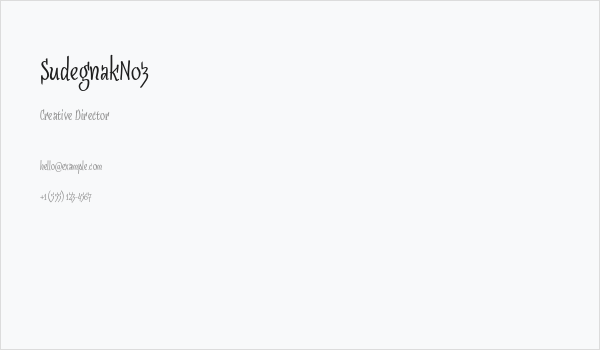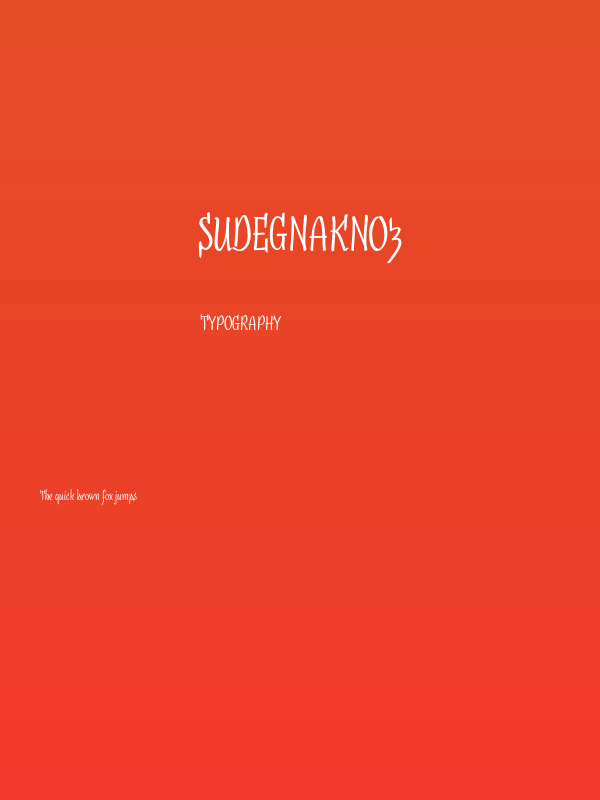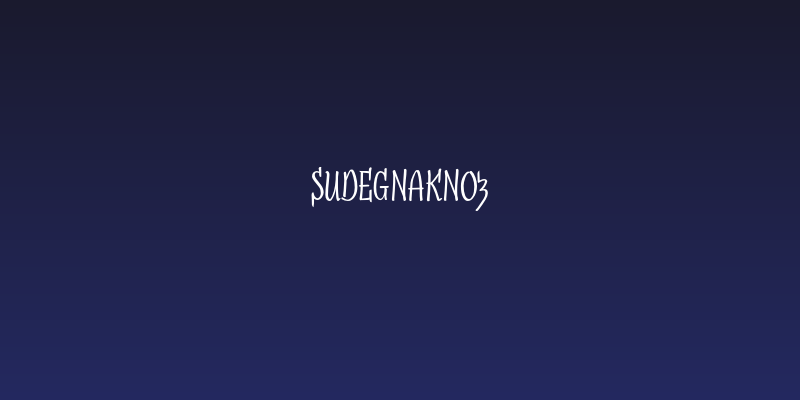
SudegnakNo3 Font
SudegnakNo3 Description
This font features a playful and whimsical style, characterized by its handwritten appearance. The letters exhibit a slight slant, adding a dynamic and informal touch. The strokes are uneven, with varying thickness that gives it a lively and organic feel. The uppercase letters are bold and prominent, while the lowercase letters maintain a consistent flow, enhancing readability. Numbers and special characters are crafted with the same playful essence, making them suitable for creative and casual designs. This font is perfect for projects that require a personal and friendly tone.
| Use Case | Headlines, Casual text, Creative projects |
| Proposed Projects | Ideal for greeting cards, children's books, playful branding, and casual invitations. |